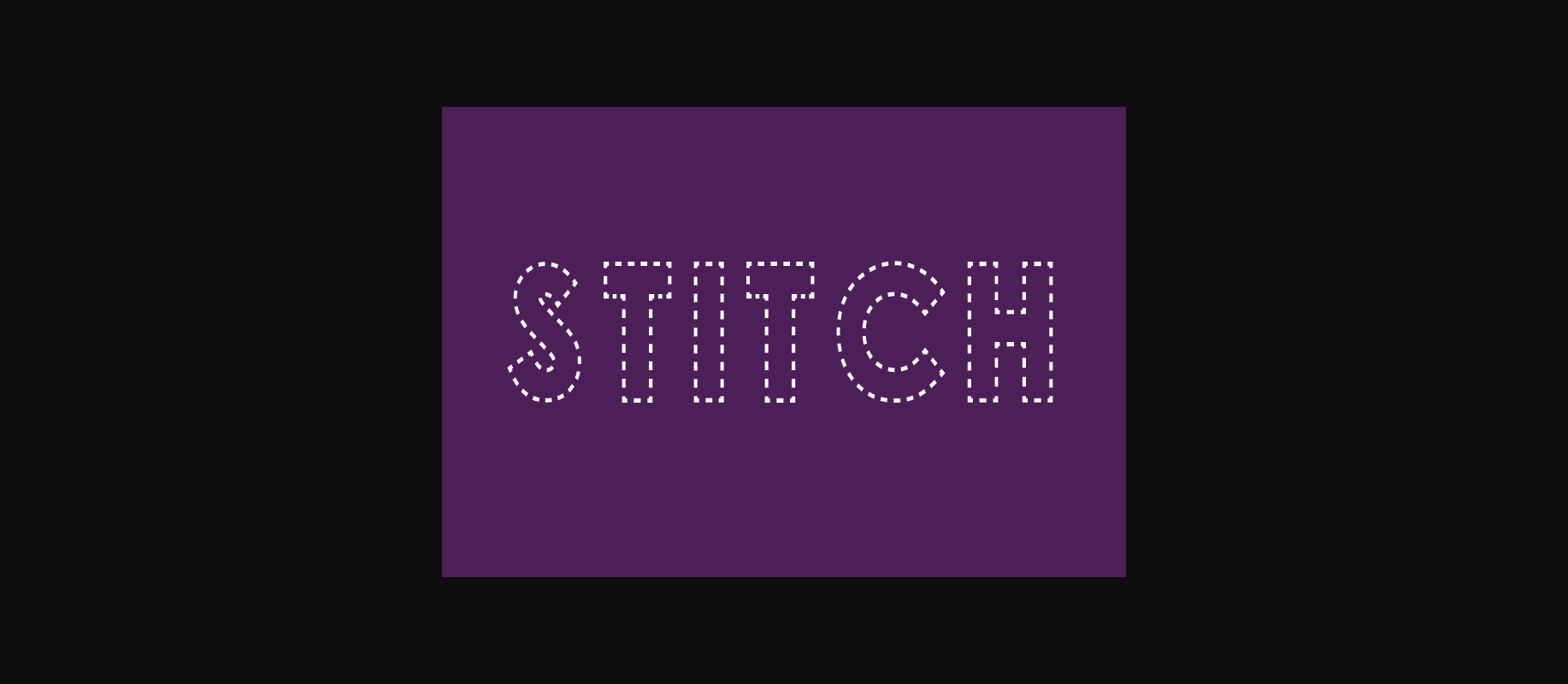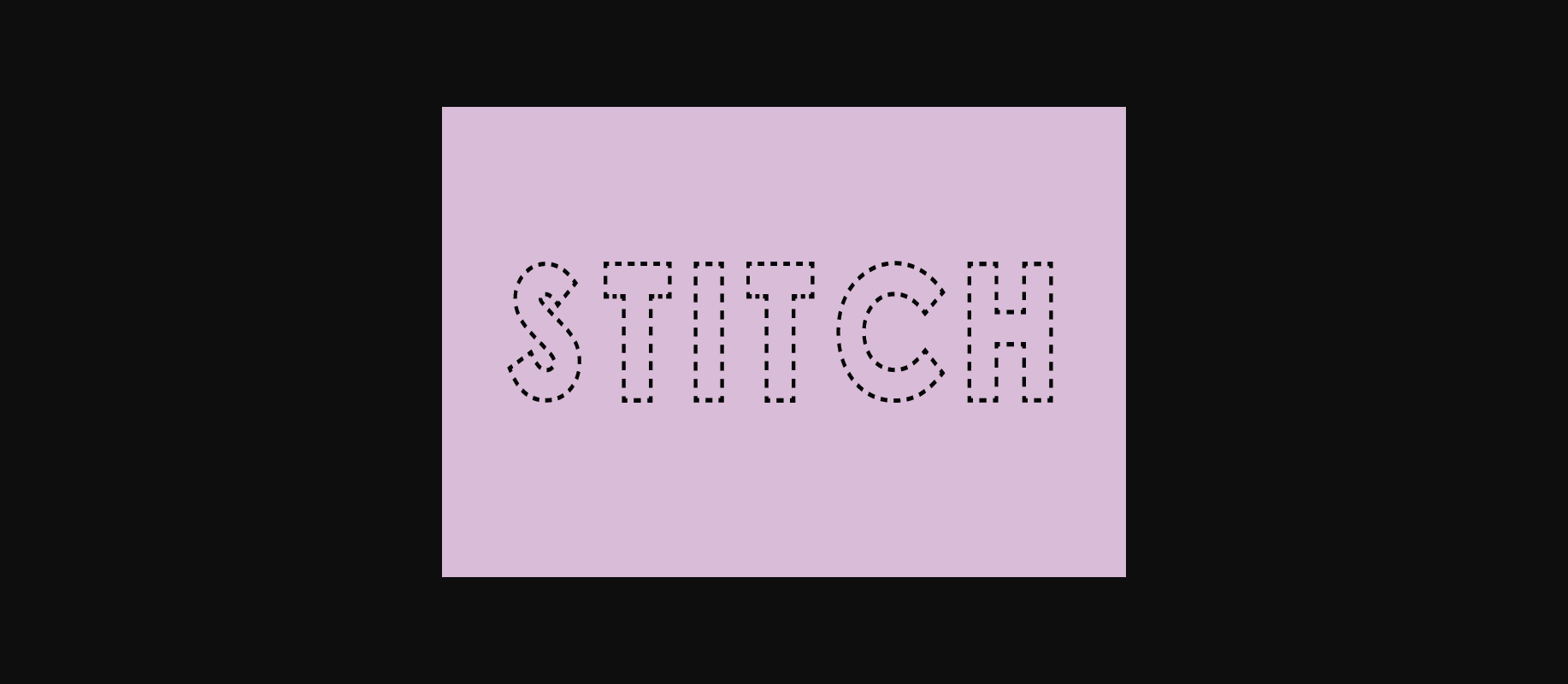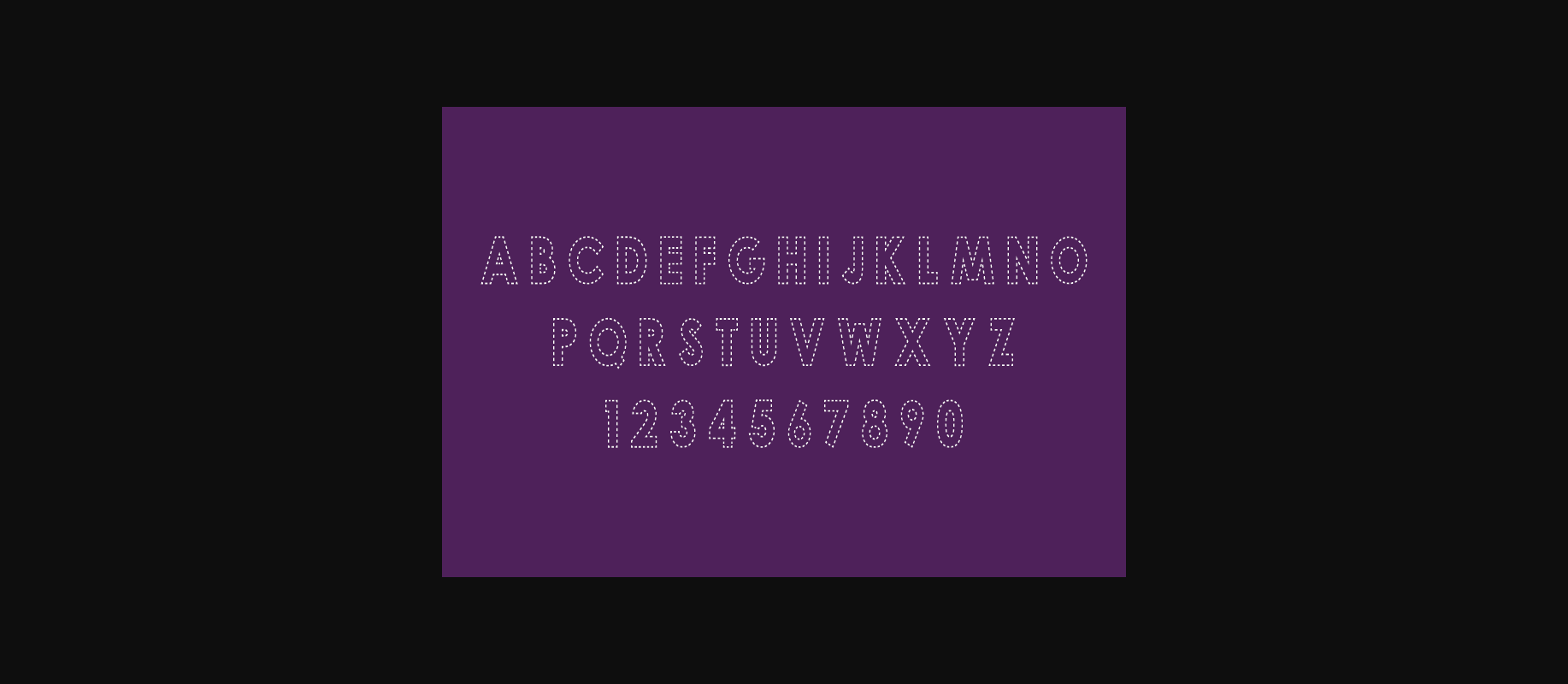
Stitch Font
About Stitch Font
Stitch Decorative Font is a whimsical and charming typeface that intricately weaves the artistry of stitching into each letterform. Every character seems to be delicately embroidered with precision, as if the strokes of a needle and thread have meticulously crafted the design. The font exudes a handmade and nostalgic quality, reminiscent of vintage needlework and textile artistry.